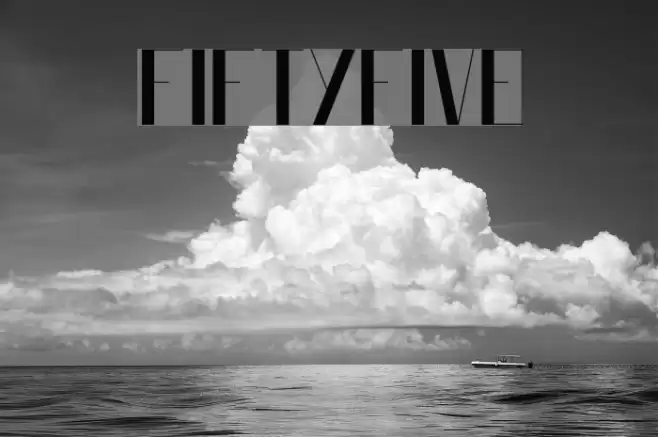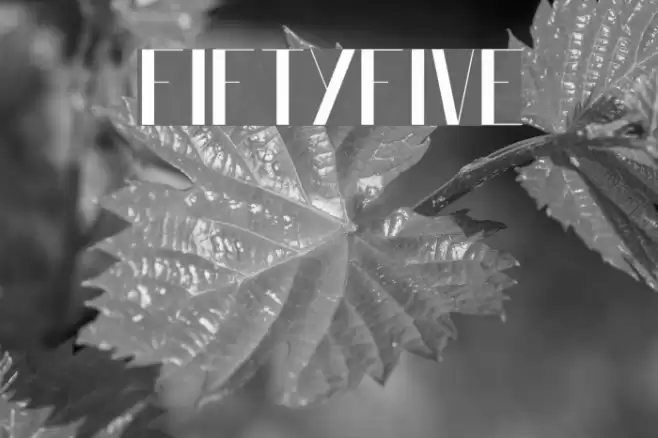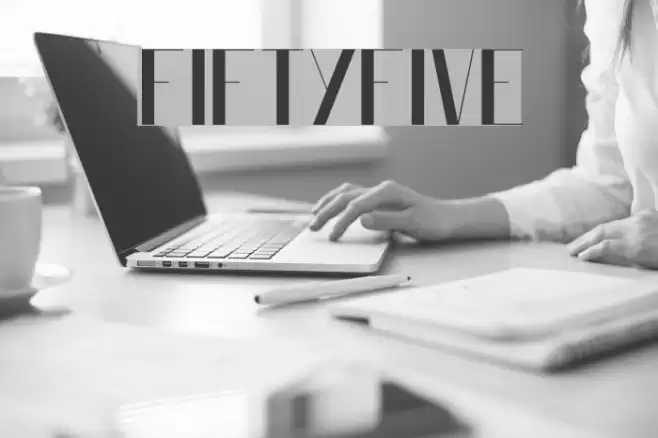
FiftyFive Font
FiftyFive Description
This font features a striking contrast between thick and thin strokes, creating a modern and sophisticated appearance. The uppercase letters are bold and elongated, while the lowercase letters maintain a consistent style with a more delicate touch. The numerals follow the same design principles, offering a cohesive look across all characters. The overall design is sleek and contemporary, making it suitable for a variety of creative projects. Its unique style is characterized by a blend of geometric shapes and elegant curves, providing a distinctive visual appeal.
A modern font with high contrast and geometric elegance from Retro fonts.
- Proposed Projects: Ideal for branding, editorial design, and high-end fashion magazines.